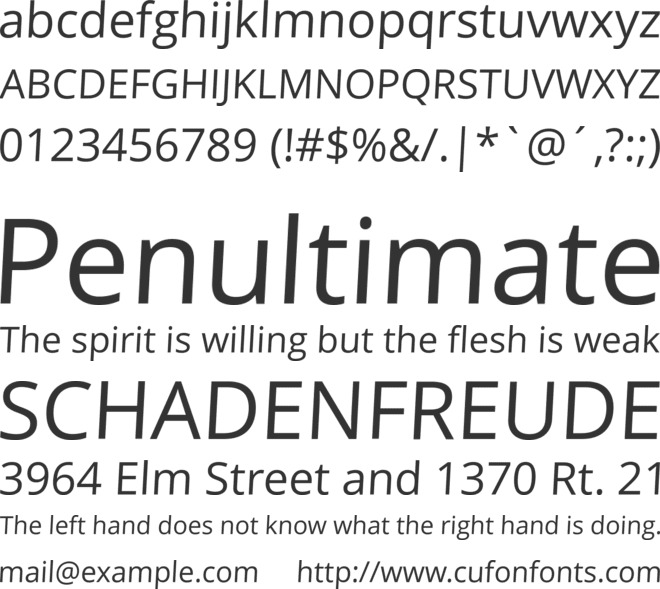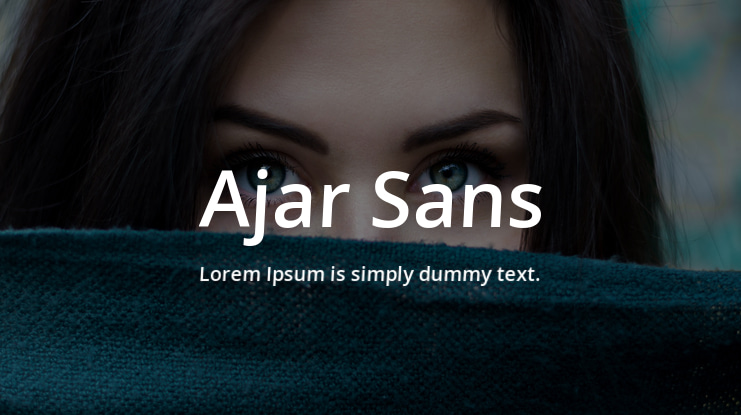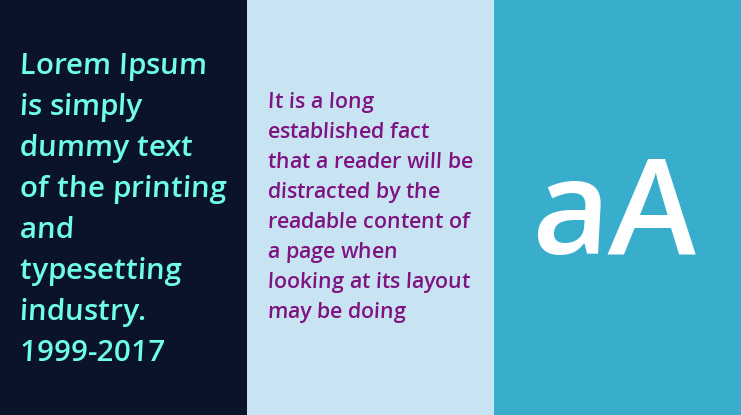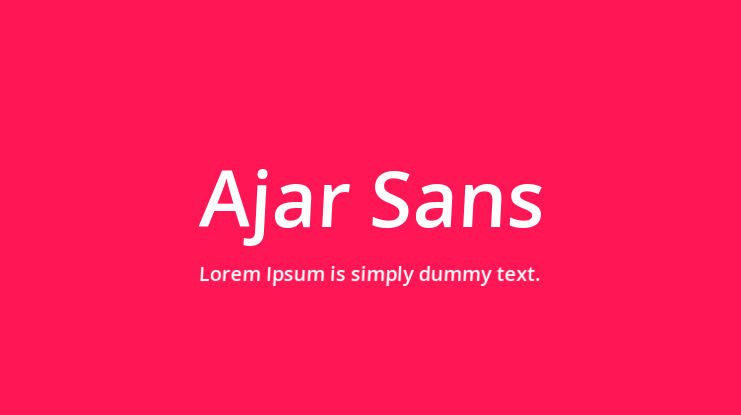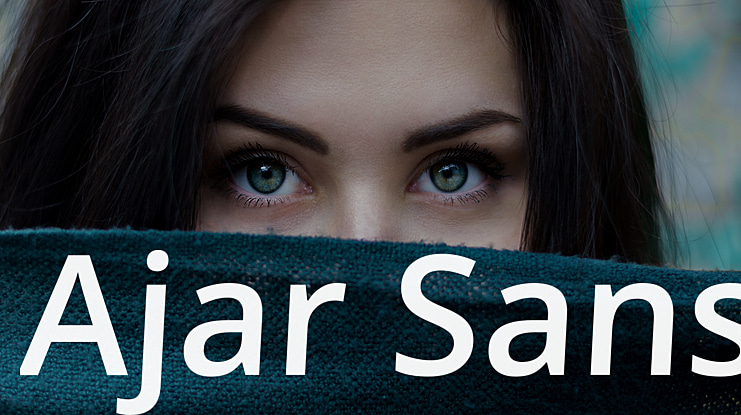
Ajar Sans Font Family
Ajar Sans is honestly nothing more than the uprights from Google's Open Sans with about three degrees of right slope. It is thus subject to all the same licence terms and conditions as Open Sans.